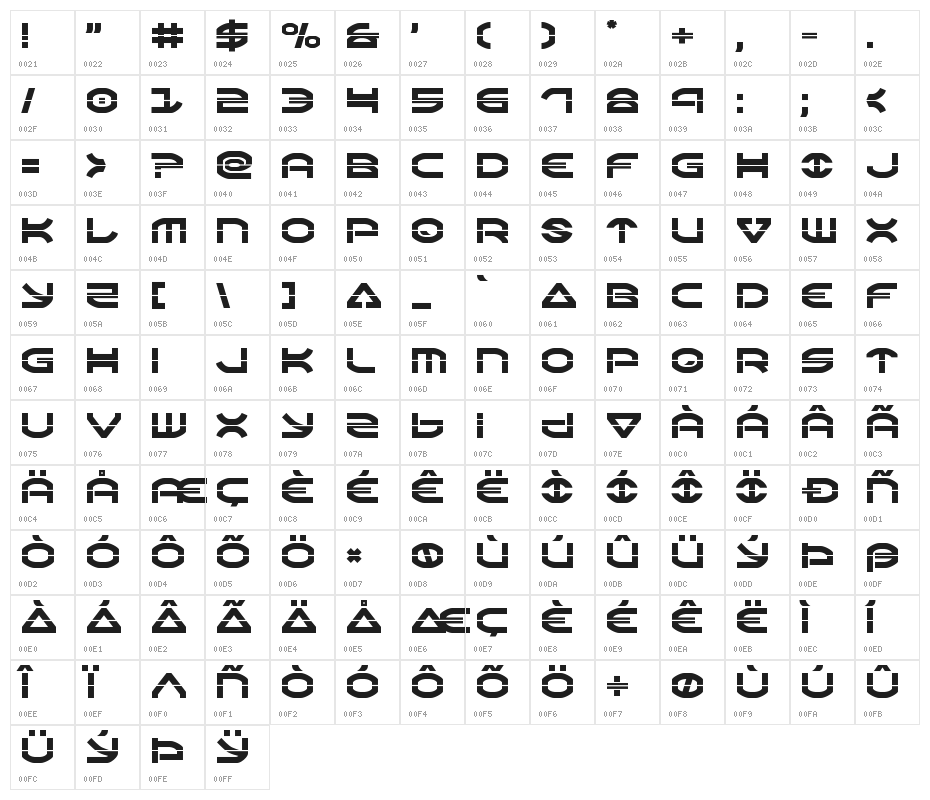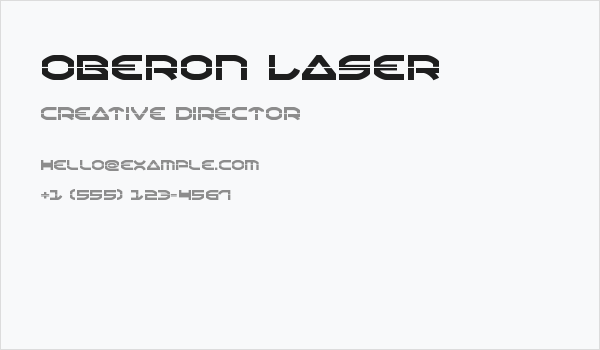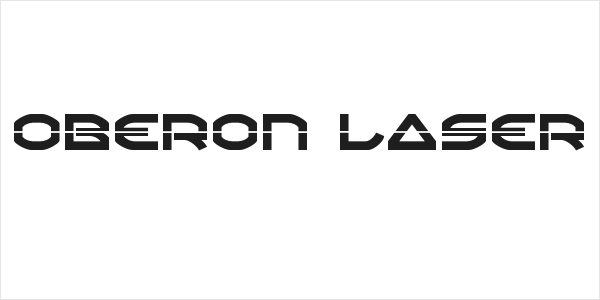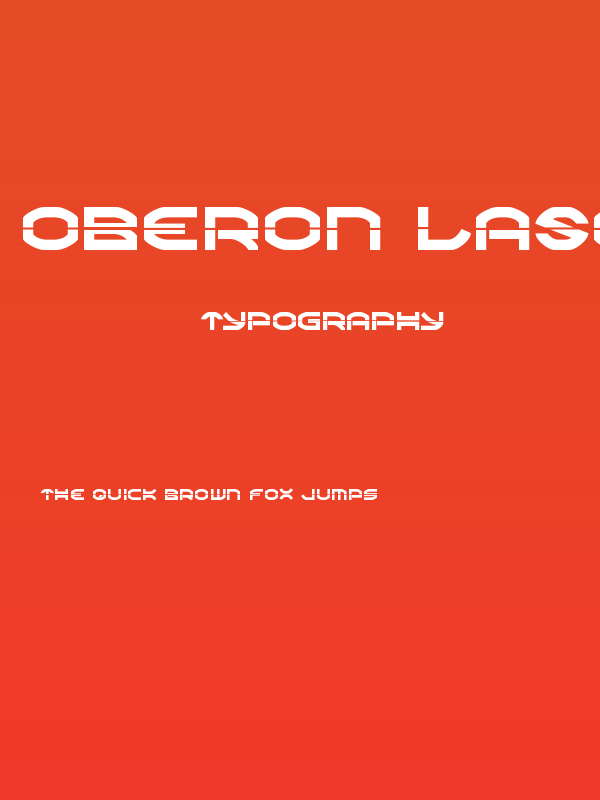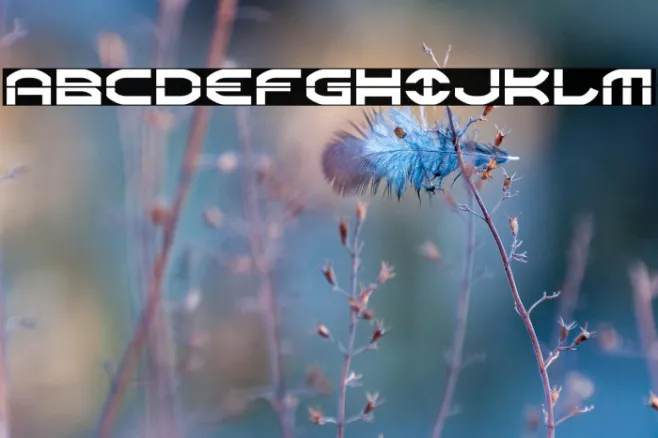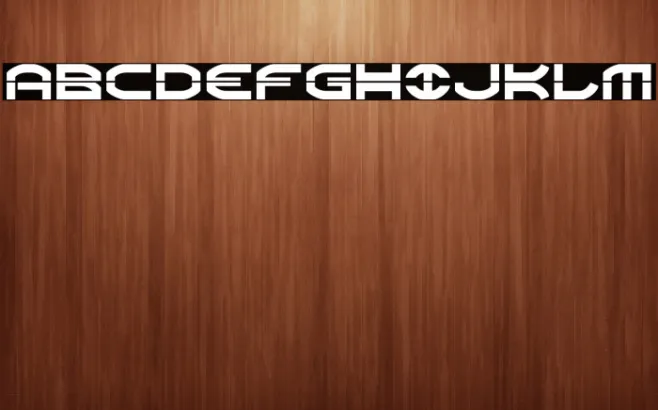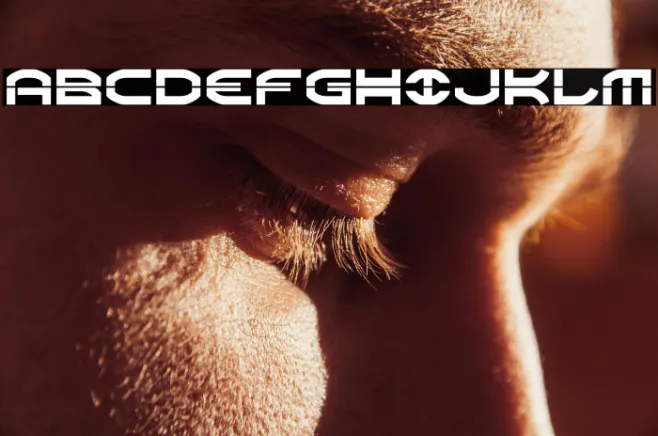
Oberon Laser Font
Oberon Laser Description
This font features a futuristic and geometric design, characterized by its bold and angular shapes. The letters are constructed with a combination of straight lines and sharp angles, creating a distinct and modern appearance. The uppercase and lowercase letters maintain a consistent style, with unique cutouts and negative spaces that add to its digital and tech-inspired aesthetic. The numbers and special characters follow the same design principles, ensuring a cohesive look across all glyphs. This font is ideal for projects that require a strong, contemporary feel.